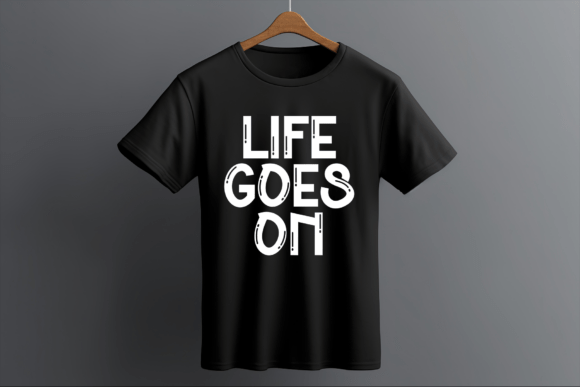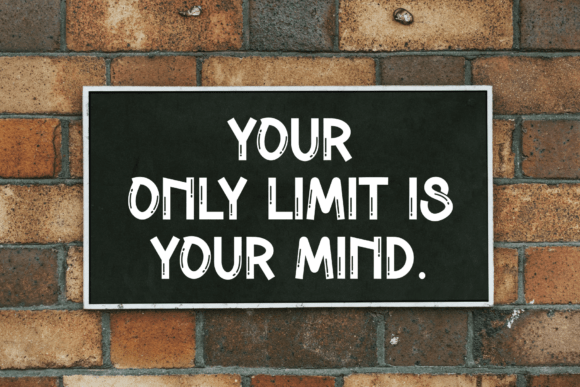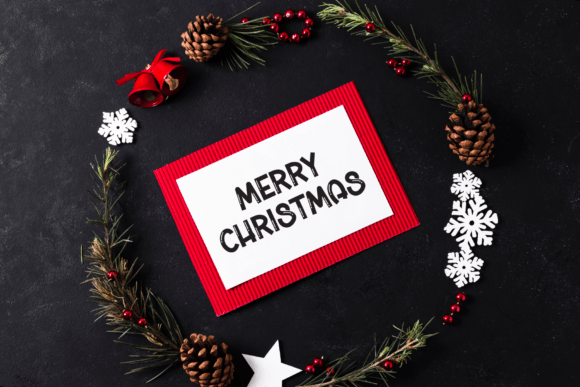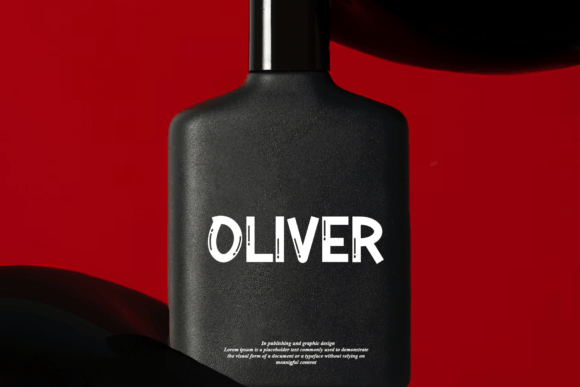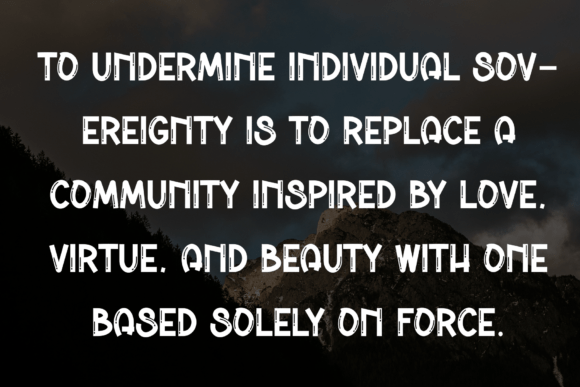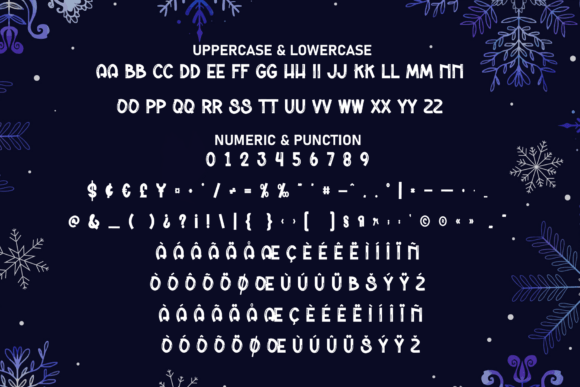
Introduction to Night Snowflake Font
Key Features of Night Snowflake Font
Why Choose Night Snowflake Font?
Night Snowflake Font offers exceptional quality and versatility, making it a valuable addition to your design toolkit. Whether you’re creating for personal projects or commercial use, Night Snowflake Font delivers professional results.